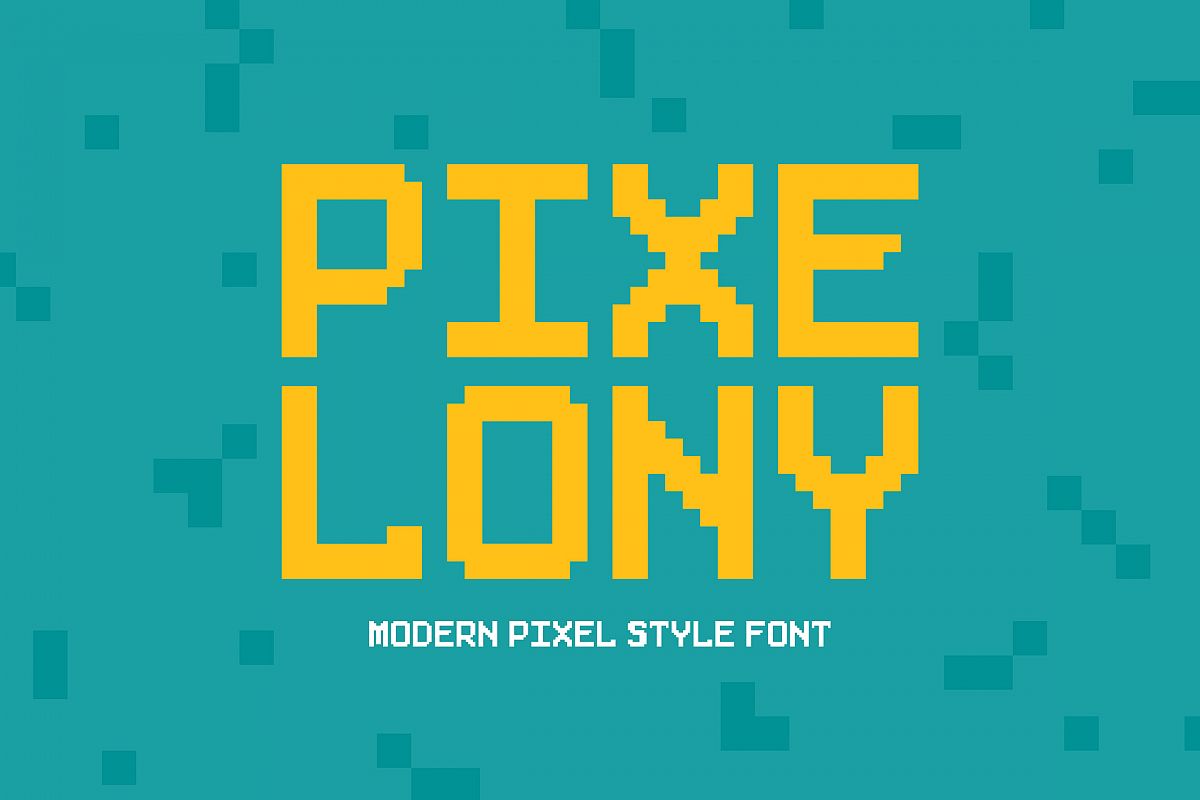
Pixelony
Pixelony-Regular
The Pixelony is a pixel style font which comes in allcaps. Each alphabet has same size (8×11 pixel), so it looks modern and minimalist.